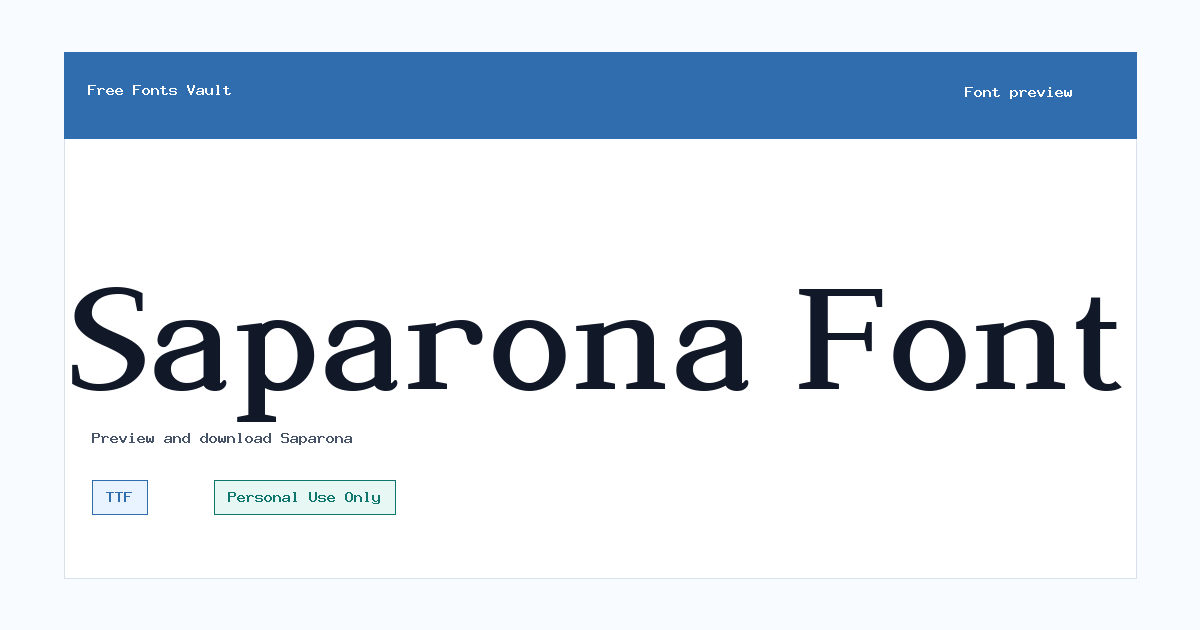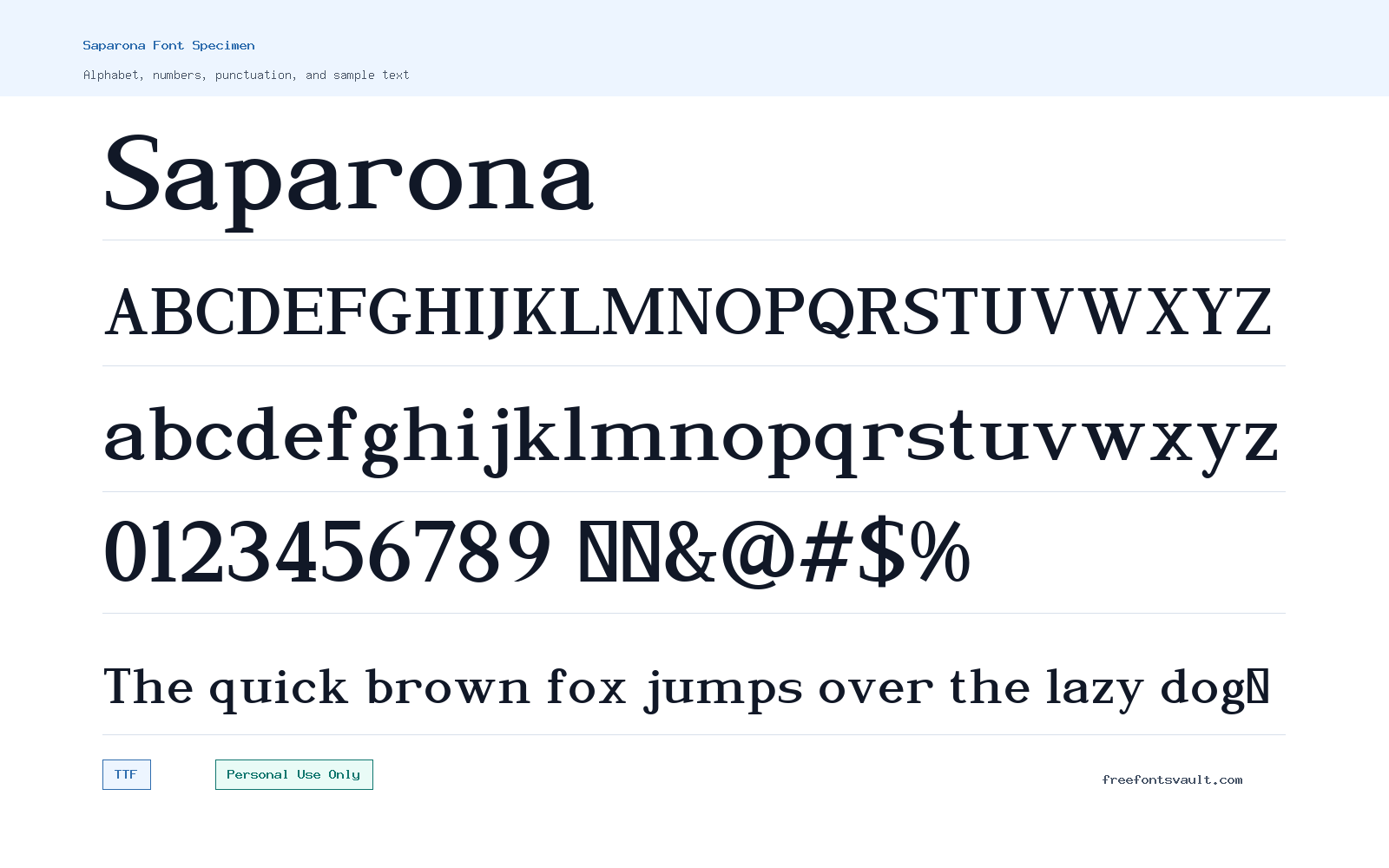
Saparona
• Designer Pikgura
Saparona is a serif font from Pikgura, offered for personal-use projects. It is a good choice to try when you need a classic text style for titles, display words, invitations, or design mockups.
About Saparona
Saparona keeps the familiar structure of a serif typeface, making it useful for designs that need a more traditional or polished tone. Because the download includes a regular weight, it works best when the design does not need a large family with bold, italic, or extended styles. Use the preview tool to check how its letters look in your own words before using it in a finished layout.
This font is most practical for short text settings such as names, headings, labels, cards, social graphics, and sample branding concepts. For longer paragraphs, test the spacing and letter shapes at the exact size you plan to use. Serif fonts can look elegant in large display text, but readability depends on size, contrast, and the background behind the type. Pair Saparona with a clean sans serif if you want the serif style to stand out without making the whole design feel too busy.
• Suited to short display text, mockups, cards, headings, and personal design projects
• Personal invitations, greeting cards, posters, and quote graphics
• Typography previews, mood boards, logo drafts, and non-commercial design mockups
What kind of font is Saparona?
Saparona is listed as a serif font. It is best tested in display text, names, headings, cards, and personal design layouts.
Who designed Saparona?
Saparona is credited to Pikgura in the font font listing.
Should I use Saparona for body text?
Test it first at the size you need. With only a regular style listed, it may be better for headings and short text than for complex long-form typography.